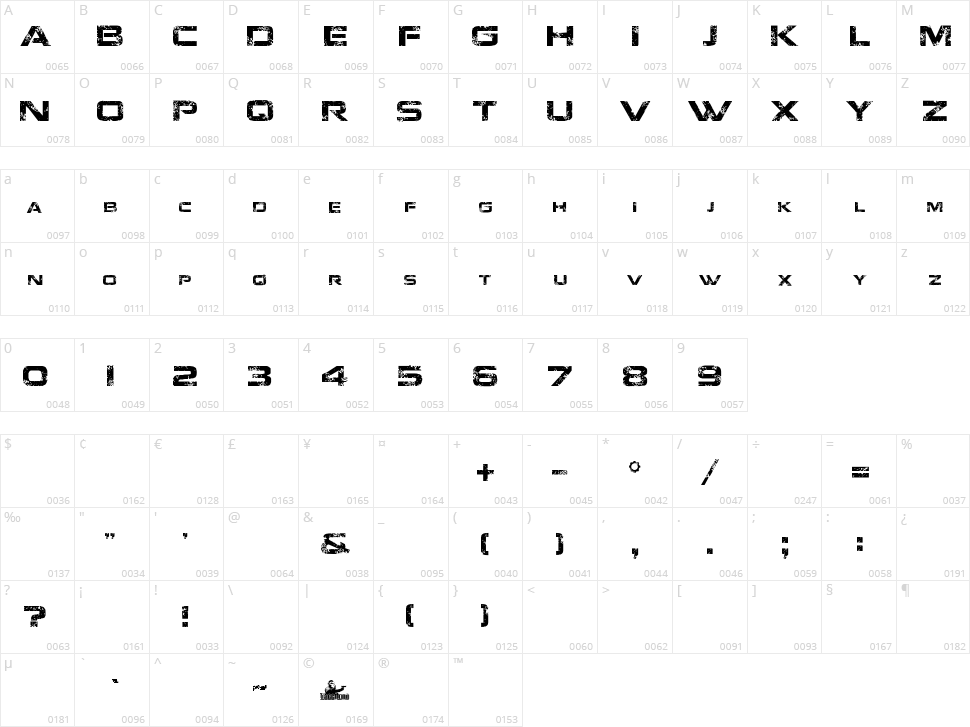
Jacinto Sans
Based on the Xbox 360 game 'Gears of War' titles.
- Gears Omen logo removed
- Slight amendments, cosmetic
- Slight clean up and fix on some kerning issues
- Now an OpenType font file
- Name Change: Now called Jacinto Sans in case of any
copyright issues with the 'Gears' name
- Added some new chars like ! () =-+
- Added european chars eg: - Uppercase only
- Fixed the kerning on A W V Y T P F and a w v y t
- Slightly renamed with 'Emergence' added